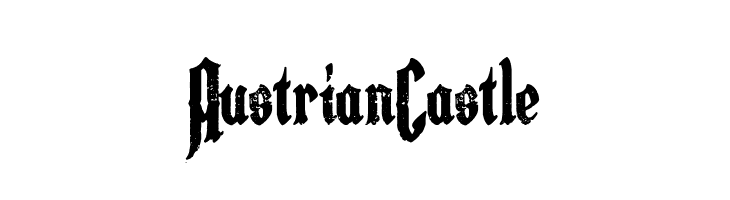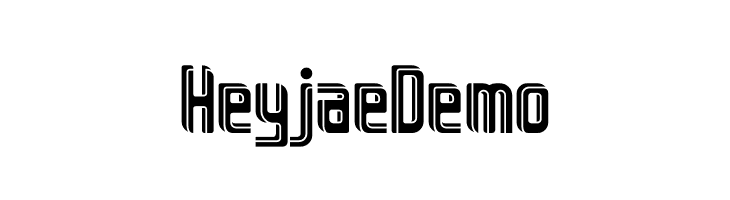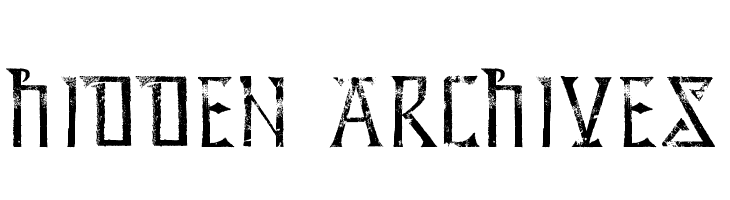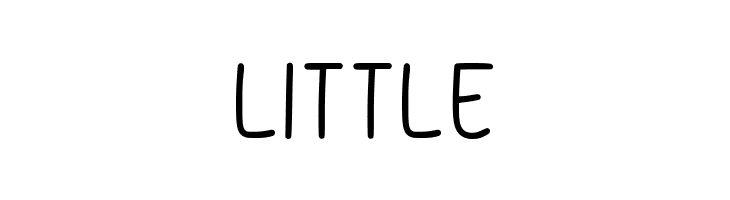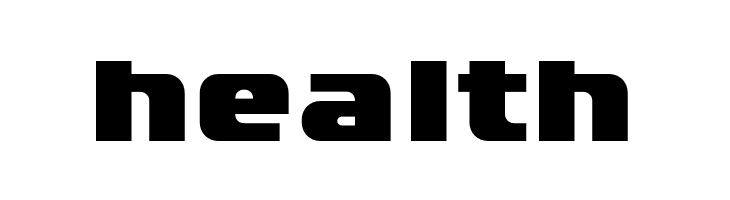
( Fonts by Mariana Aguirre )
A classic serif font with elegant strokes and refined details.
( www.chrisvile.com/ )
A rugged, distressed font with a hand-drawn, edgy appearance.
( Fonts by www.DigitalDreamDesign.net )
A bold, outlined font with a geometric and modern style.
( Fonts by Jen Jones )
A playful, handwritten font with a whimsical and friendly style.
( Fonts by Levi Halmos )
A futuristic, geometric font with angular and linear forms.